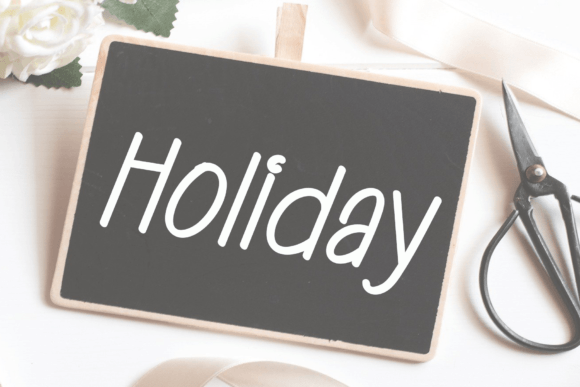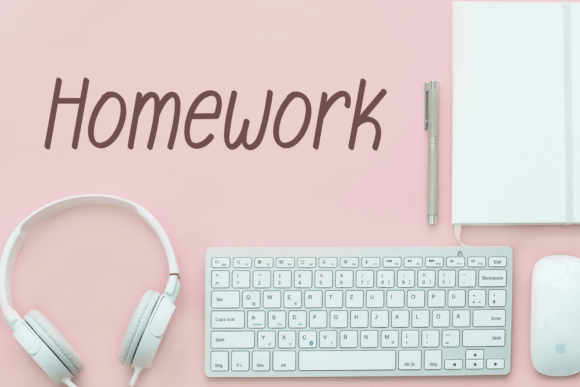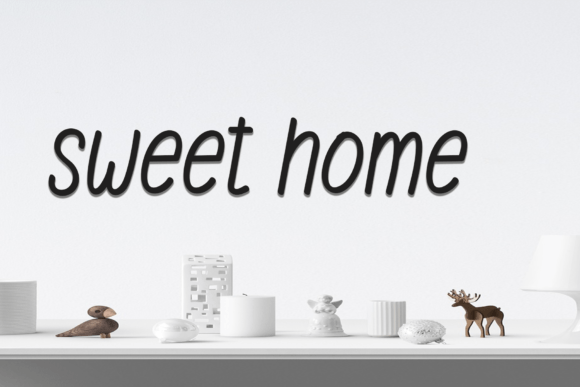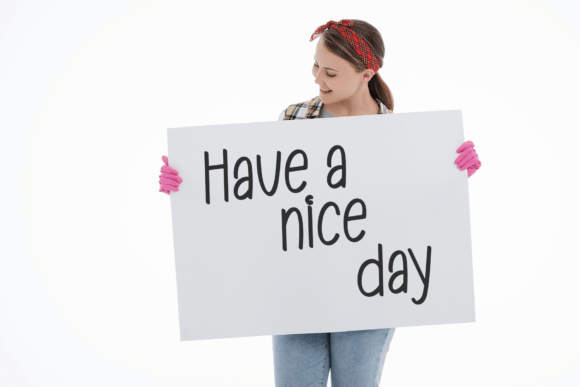
Introduction to Minimalize Font
Have you ever been stuck in the middle of a creative project, desperately searching for the perfect font to bring your idea to life? That’s where the Minimalize Font comes in – a stunning, handwritten font that will elevate your designs to new heights.
Imagine the satisfaction of scrolling through your social media feed and seeing your logo, designed with the elegant strokes of Minimalize Font, standing out from the crowd. Or, picture the thrill of watching your movie title roll on the big screen, with the script written in this beautiful, high-quality font. The possibilities are endless with Minimalize Font.
As a designer, you know how valuable it is to have a versatile and reliable design resource like Minimalize Font at your disposal. With its transparent background and free download option, you can incorporate this font into your next creative project with ease, taking your work to the next level and making it truly unforgettable.
Key Features of Minimalize Font
- High-quality, professional design for creative projects, perfect for use as a design resource.
- Features a transparent background, allowing for seamless integration into your design without visual distractions.
- Includes a range of weights and styles to suit various design needs, from headings to body text.
- Supports resolutions up to 72 dpi, ensuring crisp and clear display on various devices and platforms.
- Part of a larger font family, offering flexibility and consistency across different design elements.
- Designed to be highly legible and versatile, making it an excellent choice for a wide range of creative projects.
Honest Review: Minimalize Font
As a designer, I’m always on the lookout for high-quality, free design resources to elevate my creative projects. The Minimalize Font caught my attention with its sleek and modern aesthetic.
What works well: ✨ The font is incredibly versatile and can be used for a variety of applications, from digital products to print materials. The transparent background option allows for seamless integration with any design.
The font itself is clean and elegant, making it perfect for minimalist designs. The free download option is also a major plus, as it saves me time and money.
Here are some key features of the Minimalize Font:
- Wide range of applications
However, there are a few limitations: ⚠️ The font is only available in a limited number of weights and styles, which may not be suitable for every project.
Overall, I’m impressed with the Minimalize Font. Its clean design and versatility make it a valuable resource for any designer. While it may have some limitations, it’s definitely worth considering for your next creative project.
Tips and Use Cases
Minimalize Font is ideal for creating minimalist designs, logos, and typography projects. Use it to create a bold statement or add a touch of elegance to your design. Common use cases include creating business cards, posters, and social media graphics. Remember to experiment with different font sizes, colors, and transparencies to get the most out of Minimalize Font.
Alternatives to Minimalize Font
Montserrat is a modern sans-serif font that is perfect for high-quality design projects. It features a clean and minimalist design, making it ideal for creative projects that require a transparent background.
When to use: Montserrat is suitable for headings, titles, and body text in modern websites, applications, and other creative projects.
Comparison to Minimalize Font: Montserrat is more versatile and comes in multiple weights, making it a better choice for projects that require a wide range of font sizes and styles.
Q: Does Minimalize Font support transparent background?
Yes, Minimalize Font supports transparent background, making it perfect for designing with a transparent or semi-transparent effect. You can easily use it in your designs that require a high-quality, transparent background.